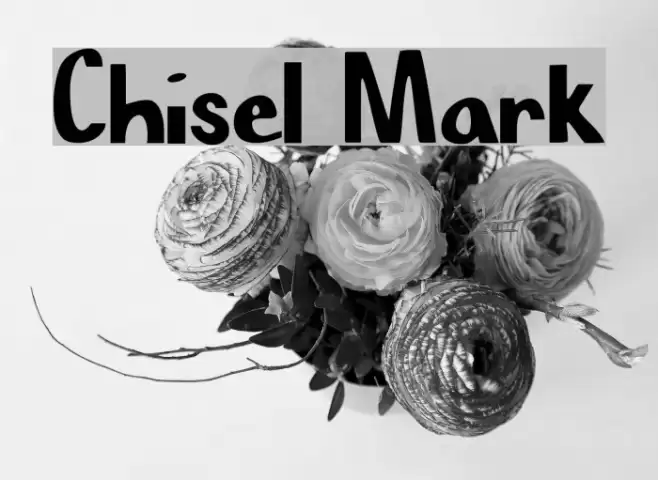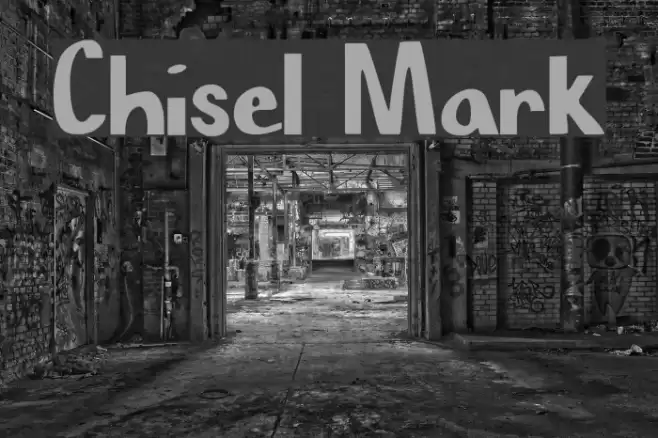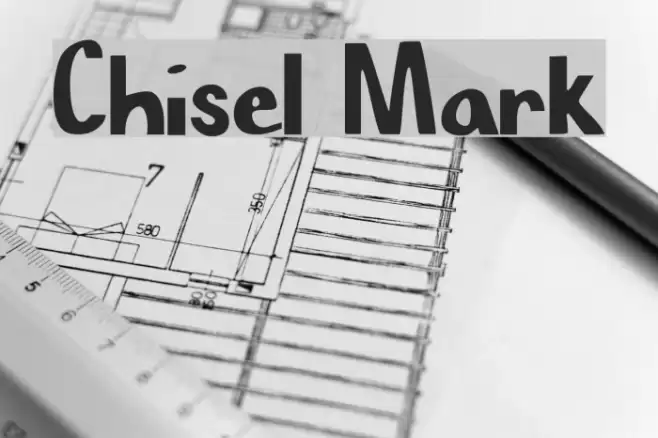
Chisel Mark Font
Chisel Mark Description
This font features a playful and bold style with a hand-drawn appearance. The uppercase letters are slightly condensed with a whimsical flair, while the lowercase letters maintain a consistent, rounded form. The numbers are bold and legible, matching the overall style of the alphabet. Special characters are included, adding versatility to the font's use. The strokes are consistent in weight, providing a uniform look across all characters. This font is ideal for projects that require a fun and informal touch, such as children's books, posters, or creative branding.
A playful, bold font with a hand-drawn, whimsical style from Uncategorized fonts.
- Proposed Projects: Ideal for children's books, playful posters, creative branding, and informal invitations.
- Overall Style: Playful